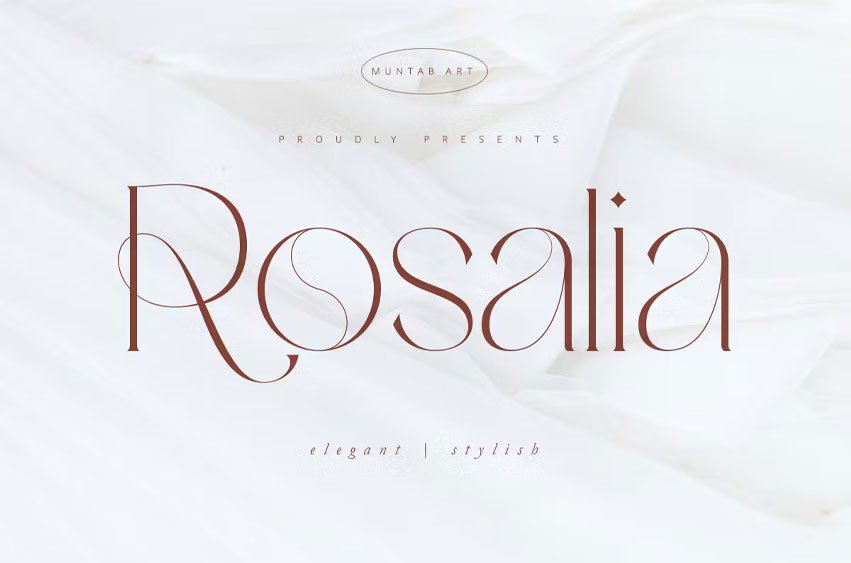
Rosalia Font includes uppercase letters, lowercase, numerals, a large range of punctuation. Serif font with modern stylish style.
Created for poster, web design, branding, illustrations, badges and some other works.